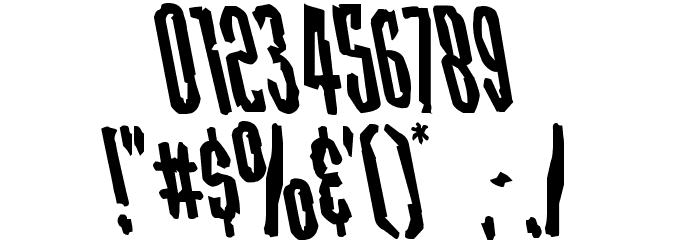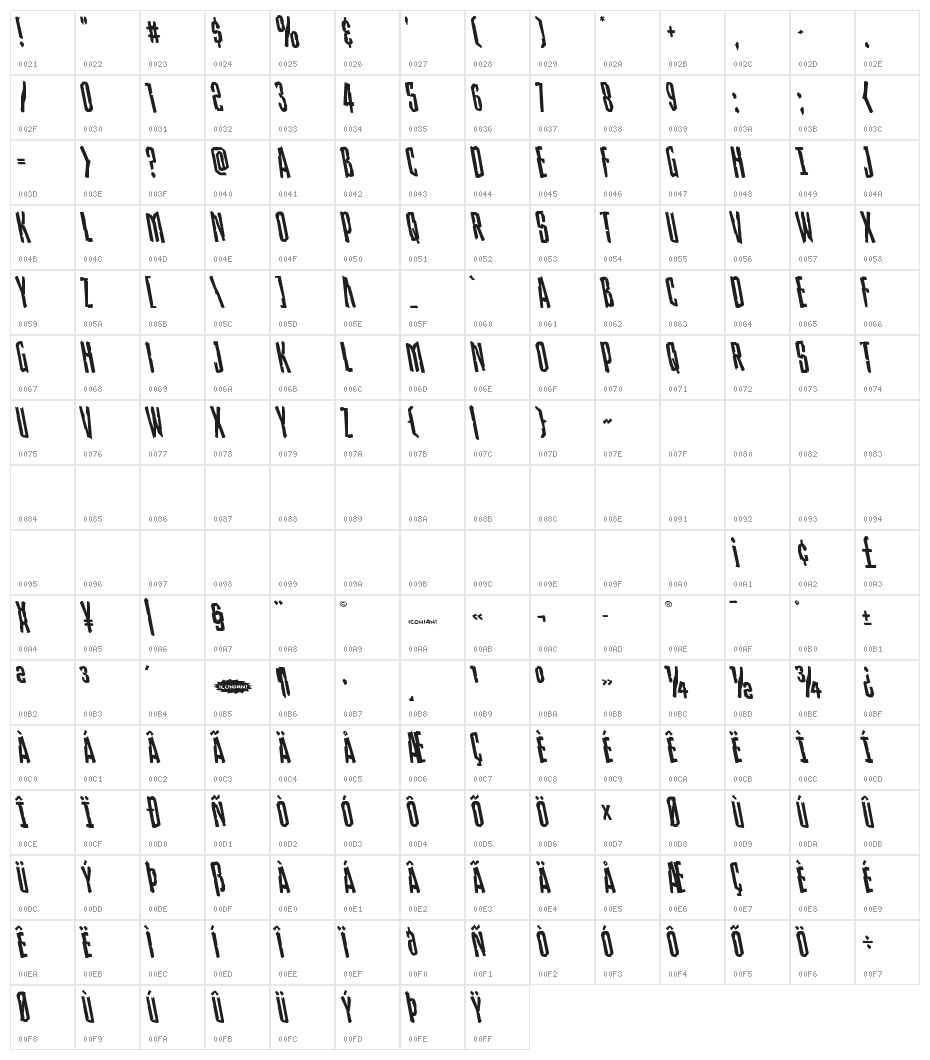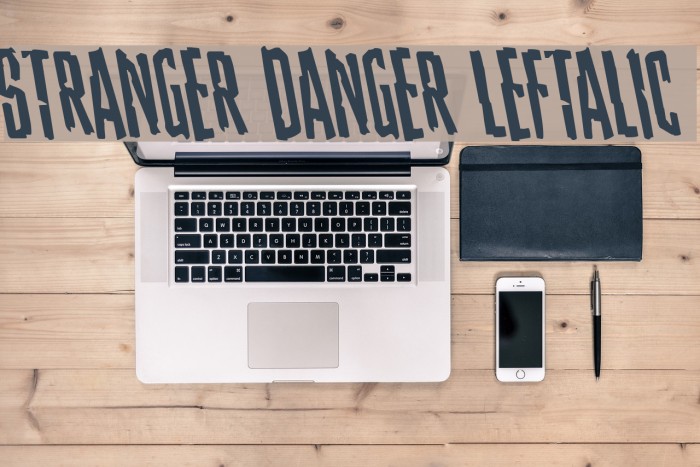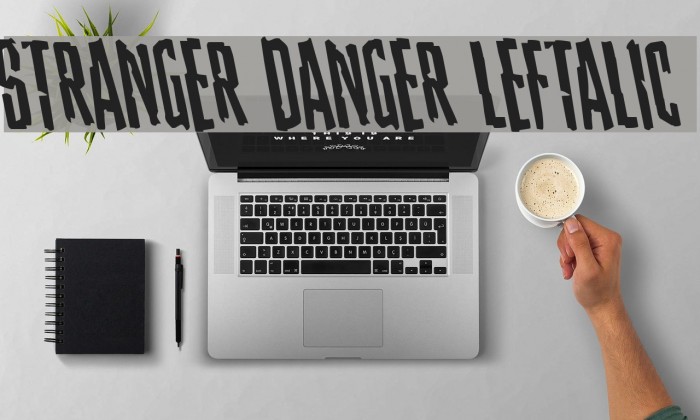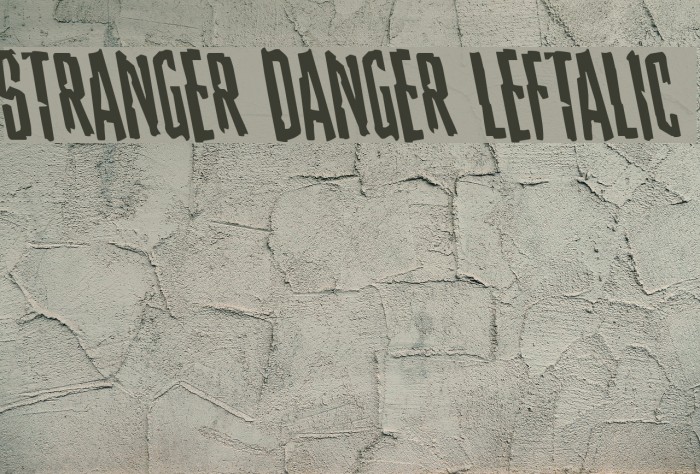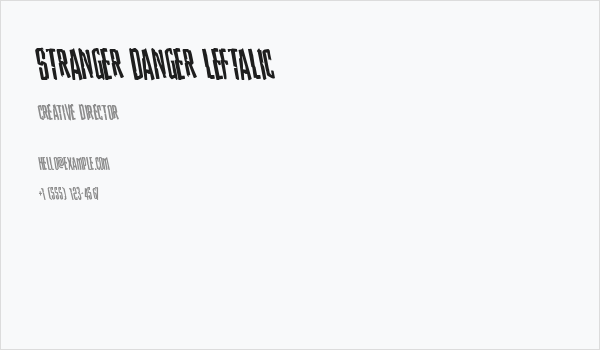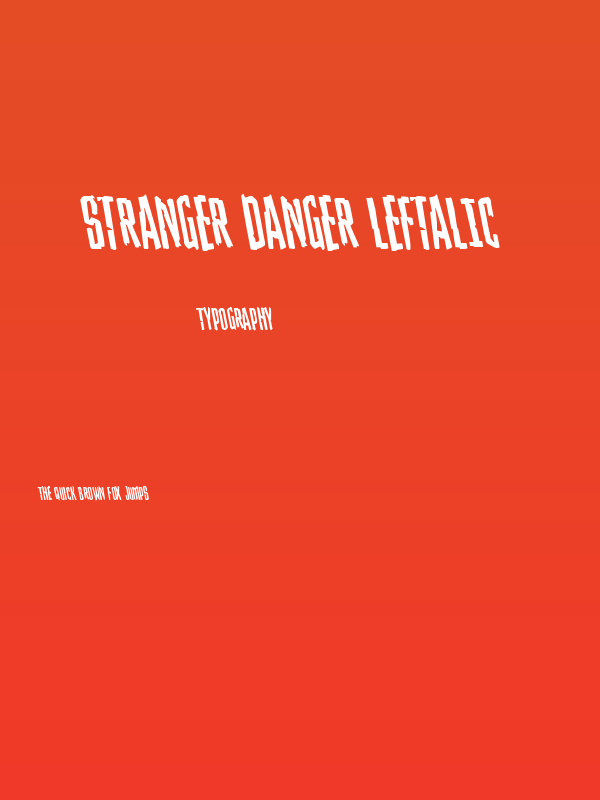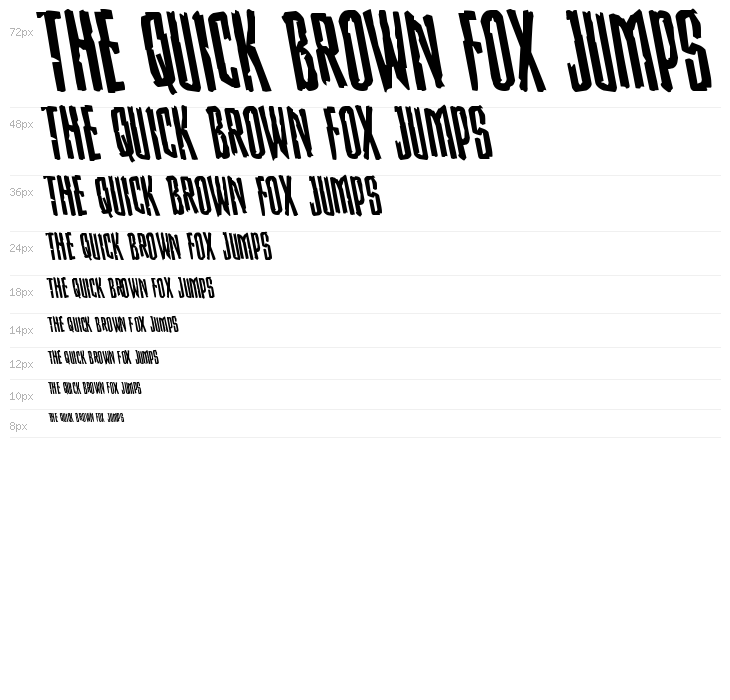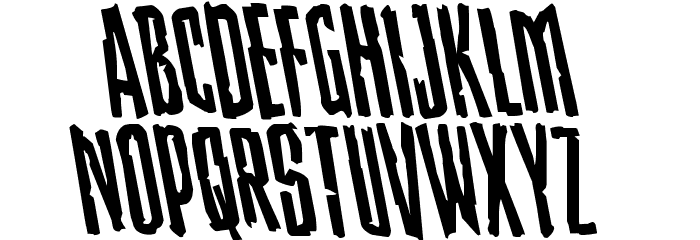
Stranger Danger Leftalic Font
Stranger Danger Leftalic Description
This font features a bold and dynamic style with a distinct leftward slant, giving it a sense of motion and urgency. The characters are thick and slightly irregular, adding a raw, edgy feel. The uppercase and lowercase letters maintain a consistent width, while the numbers and special characters follow the same bold and slanted design. The overall appearance is striking and attention-grabbing, making it suitable for projects that require a strong visual impact.
| Proposed Projects | Ideal for posters, album covers, event flyers, and branding that requires a bold statement. |